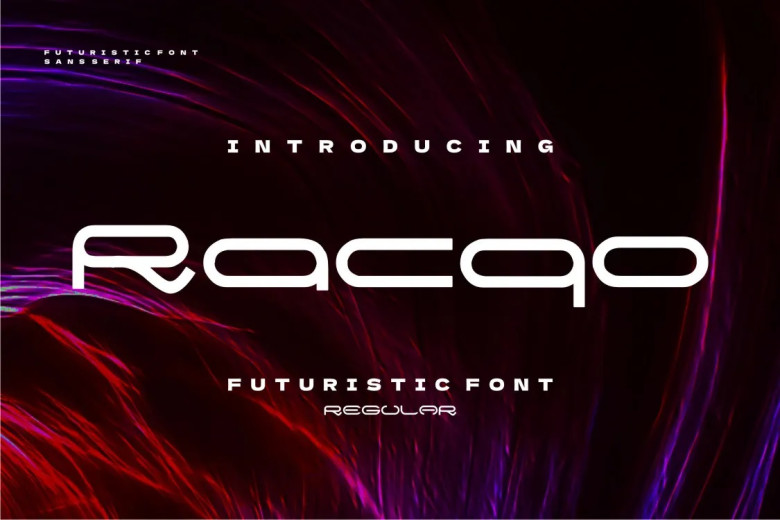
Racqo Font
Presenting the stylish new Racqo Font. This futuristic font makes an excellent addition to web designs as well as business cards or any other item that requires an eye-catching display.
Racqo Techno Display Font